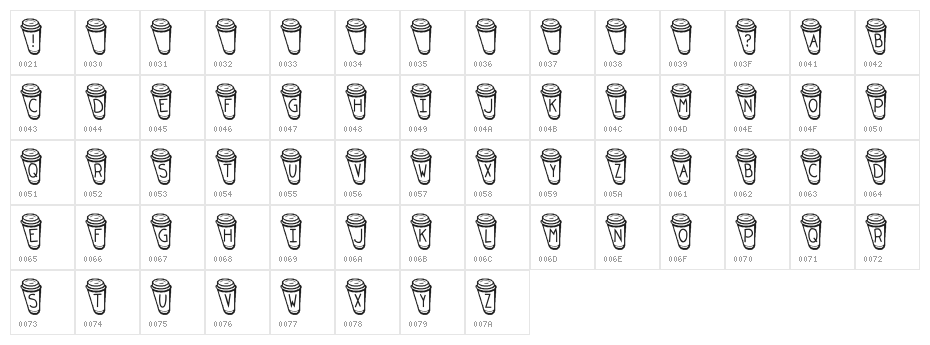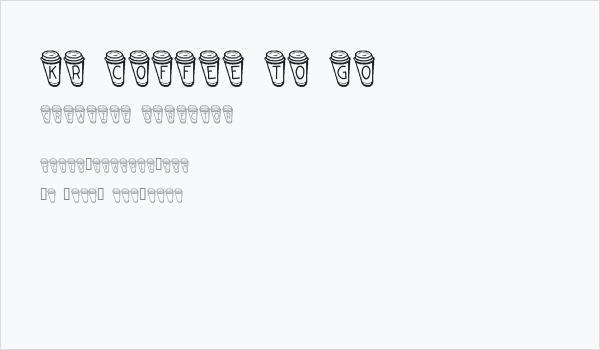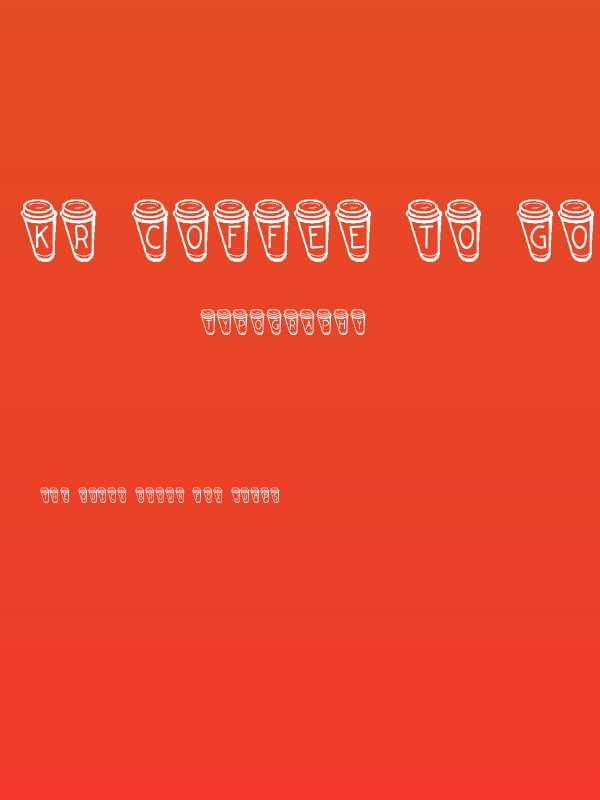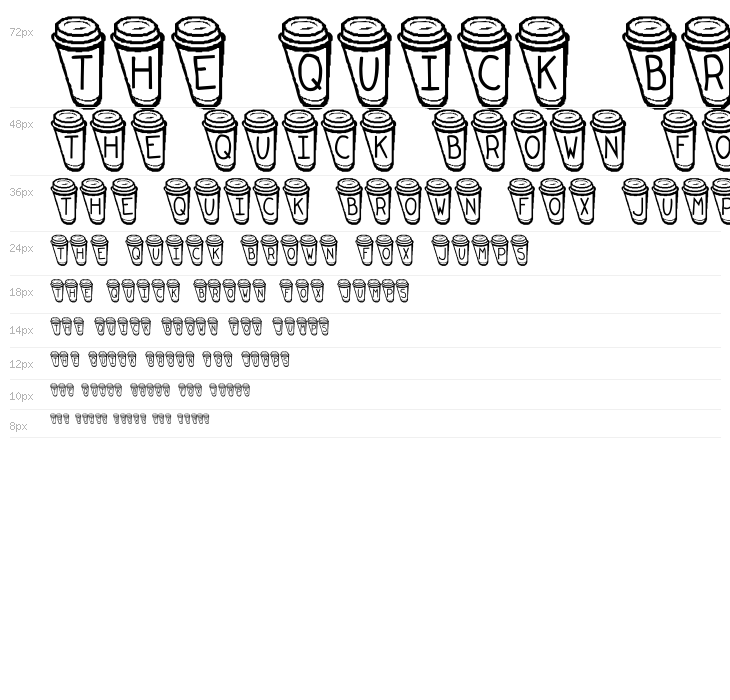
KR Coffee To Go Font
KR Coffee To Go Description
This playful and unique font features each letter and character encapsulated within a stylized coffee cup design. The letters are bold and clear, making them stand out against the coffee cup backdrop. The design is whimsical and fun, perfect for projects that aim to capture a casual and friendly atmosphere. The font maintains a consistent style across both uppercase and lowercase letters, as well as numbers and special characters. The coffee cup motif adds a decorative element that is both eye-catching and thematic, ideal for coffee-related branding or playful design contexts.
| Proposed Projects | Ideal for coffee shop branding, themed event invitations, playful posters, and novelty product packaging. |